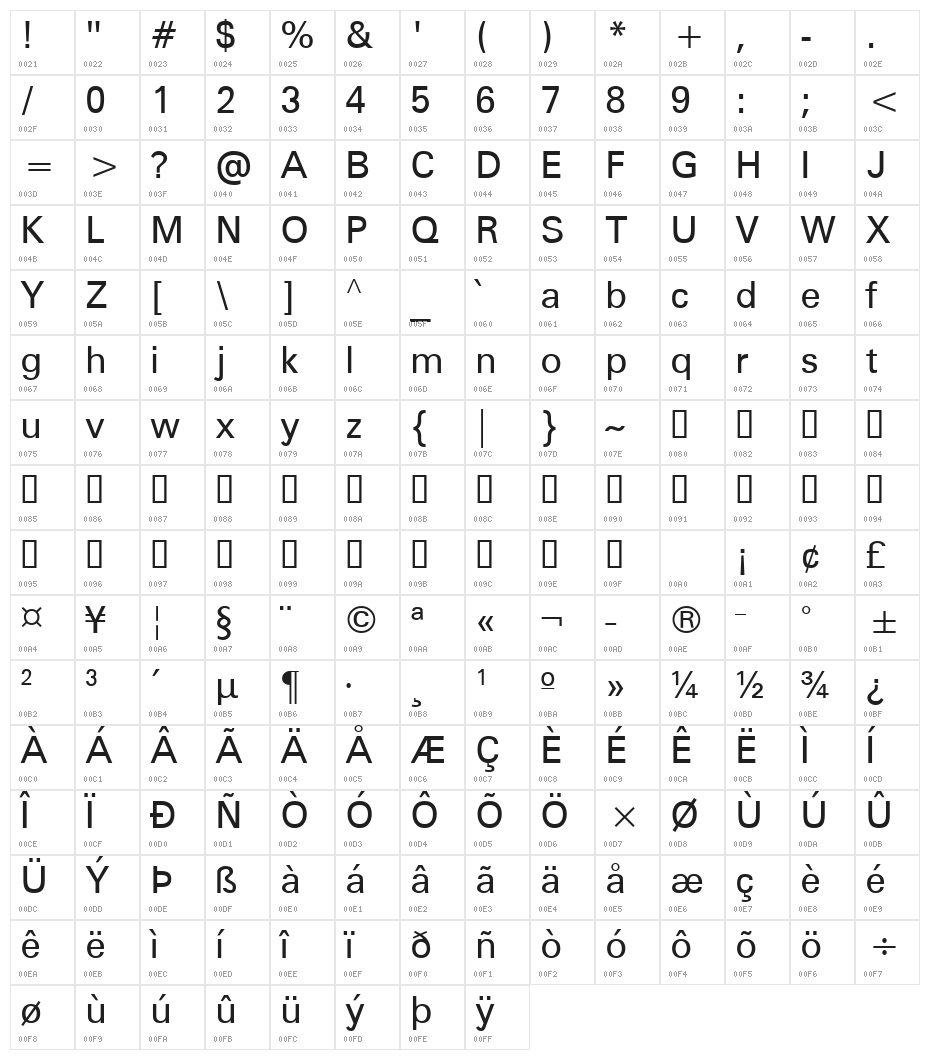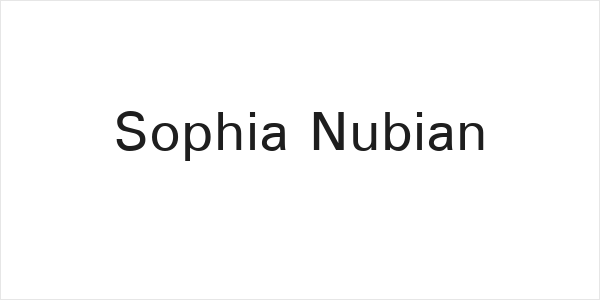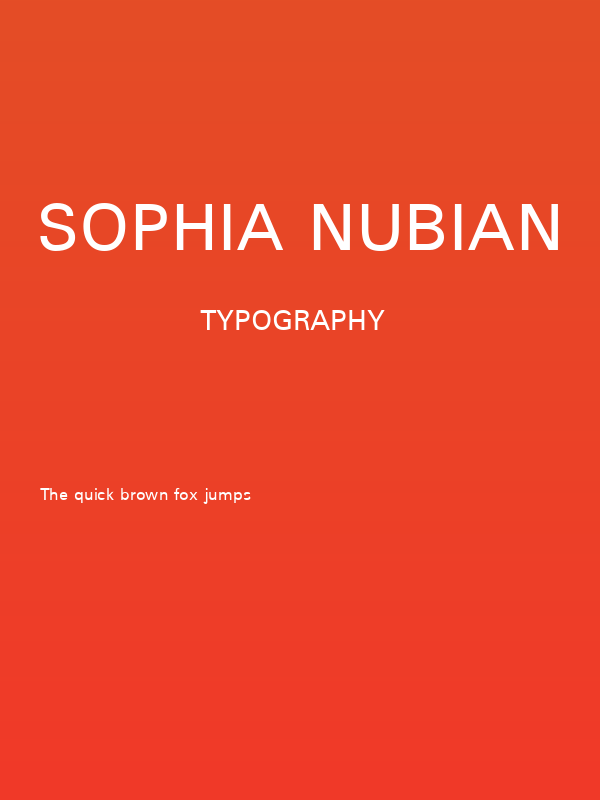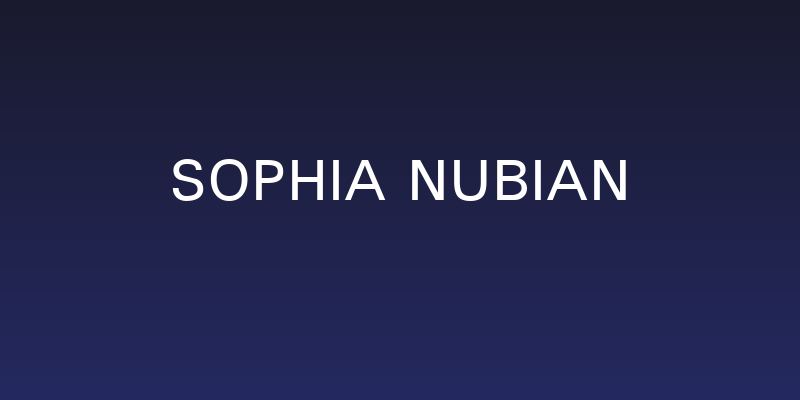
Sophia Nubian Font
Sophia Nubian Description
This font features a clean and modern sans-serif design, characterized by its simplicity and clarity. The characters are evenly spaced, with a consistent stroke width that provides a uniform appearance. The uppercase letters are bold and assertive, while the lowercase letters maintain a balanced and approachable feel. Numbers are clear and legible, making them suitable for various applications. The special characters are well-defined, ensuring they stand out without overpowering the text. This font's straightforward style makes it versatile for both digital and print media.